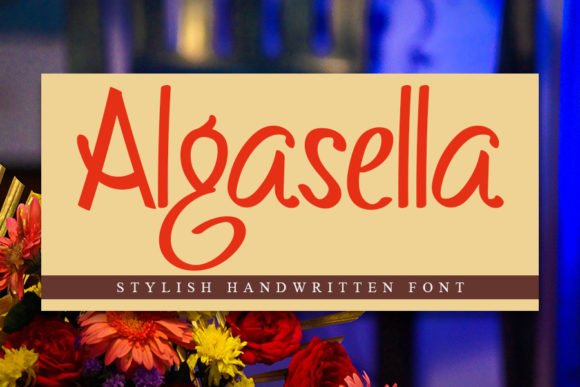
Where Creativity Meets Whimsy: Discovering the Magic of Algasella Font
You know that moment when you’re brainstorming a new project, and a spark of inspiration hits you? The ideas start flowing, and you can’t wait to bring your vision to life. For designers, this moment is a thrilling experience, and having the right tools can make all the difference. That’s where Algasella Font comes in – a sweet and friendly handwritten font that’s about to become your new best friend.
Algasella Font is designed to bring a touch of natural charm to your designs. Its unique style is incredibly versatile, making it a perfect fit for a wide range of projects. From invitations and greeting cards to branding and packaging, the possibilities are endless. What sets Algasella Font apart is its ability to add a personal touch to your work, making it truly special.
- Unique Characteristics: Algasella Font features a unique, hand-drawn design with a mix of modern and vintage elements, making it suitable for a wide range of applications, from branding to editorial content
Algasella Font Review
Overall, I think the Algasella Font is a nice addition to any designer’s toolkit. It’s a versatile font that works well in various contexts. ✨
- Unique character set: The font features a unique set of characters that add a touch of elegance to any text.
- Good for body text: Algasella Font is suitable for body text due to its clear and legible nature.
- Creative flair: The font’s distinctive style makes it perfect for designers who want to add a creative flair to their projects.
- Not ideal for headings: While Algasella Font can be used for headings, it may not be the best choice due to its relatively small size.
- May not be suitable for bold text: The font’s bold version may not be as effective as other fonts in emphasizing text.
- Customization limitations: Some designers may find that the font’s customization options are limited compared to other fonts.
- ⚠️ May not be compatible with older systems: Algasella Font may not be compatible with older systems or browsers, which could lead to display issues.
Overall, I would say that the Algasella Font is a solid choice for designers who want to add a unique touch to their projects. While it has some limitations, it’s still a great option for body text and creative projects.
Algasella Font is perfect for creating elegant and sophisticated designs in Canva. Use it for headings, titles, or any text that needs a touch of sophistication.
Algasella Font is ideal for creating high-end designs in Adobe Photoshop and Illustrator. Use it for logos, headings, or any text that needs a professional touch.
Algasella Font is perfect for creating presentations and documents that require a touch of elegance and sophistication.
Algasella Font is ideal for:
- Creating logos and branding materials.
- Designing high-end presentations and documents.
- Adding a touch of sophistication to website headers and footers.
Alternatives to Algasella Font
Oswald is a sans-serif font that is highly versatile and suitable for a wide range of design projects, including headlines, body text, and titles. It’s a great alternative to Algasella Font for designers who want a clean and modern look. Oswald is more condensed than Algasella Font, making it ideal for small spaces or tight layouts.
Montserrat is a sans-serif font that is highly legible and suitable for both print and digital designs. It’s a great alternative to Algasella Font for designers who want a modern and urban look. Montserrat is more geometric than Algasella Font, making it ideal for designs that require a strong and bold feel.
Avenir Font
Avenir is a sans-serif font that is highly versatile and suitable for a wide range of design projects, including headlines, body text, and titles. It’s a great alternative to Algasella Font for designers who want a clean and modern look. Avenir is more elegant than Algasella Font, making it ideal for designs that require a sophisticated and refined feel.